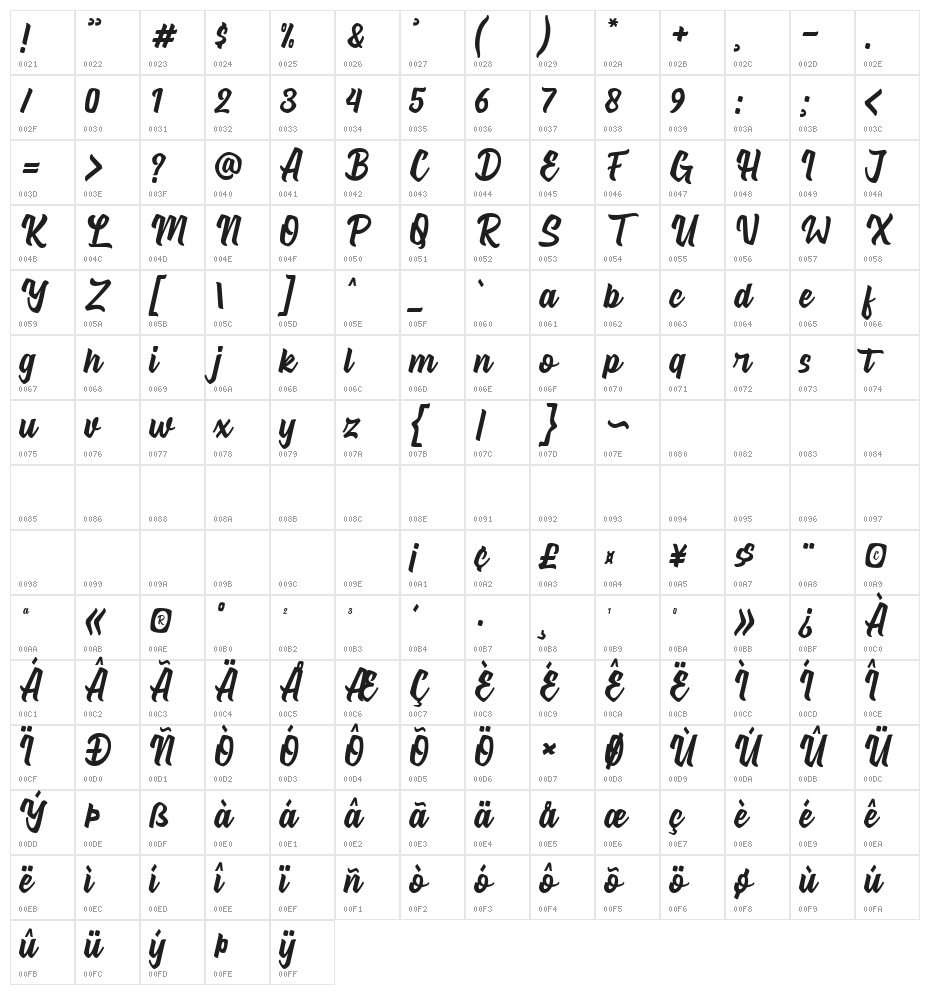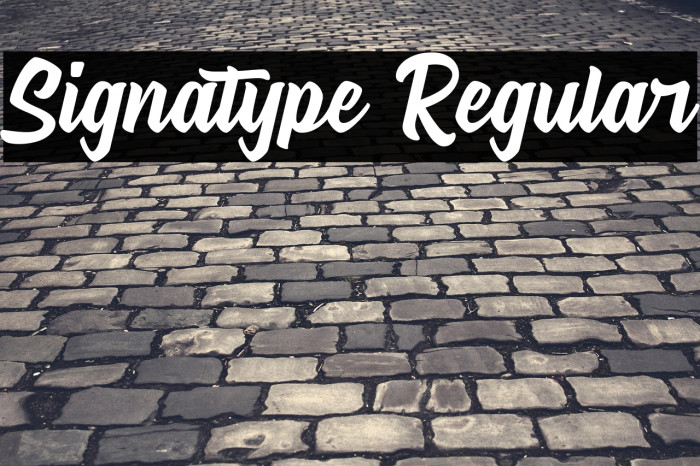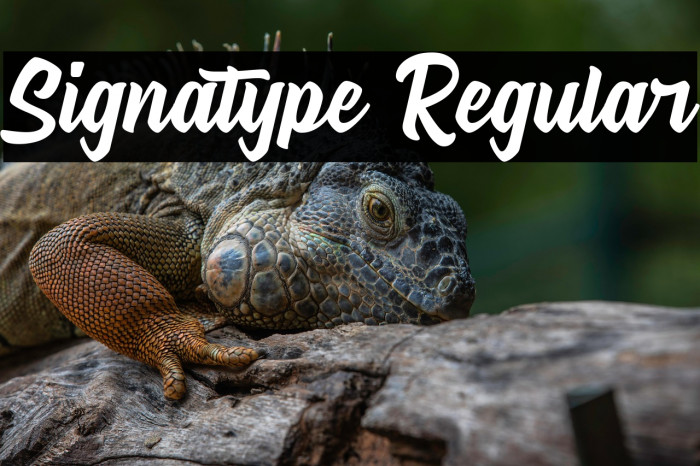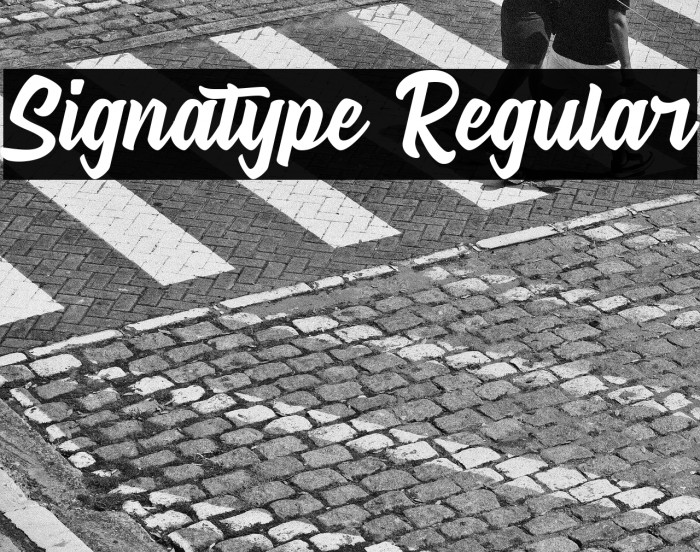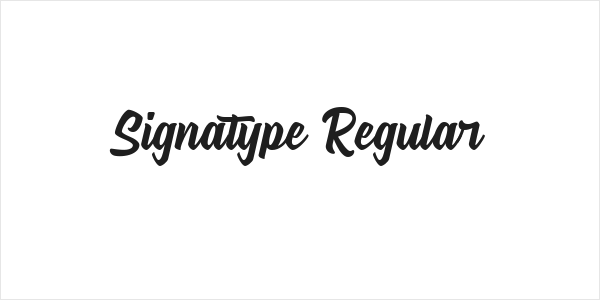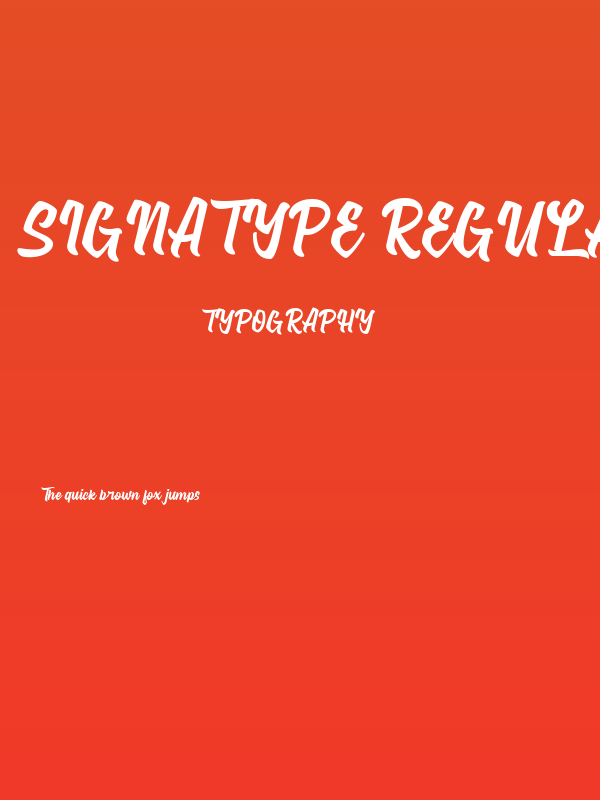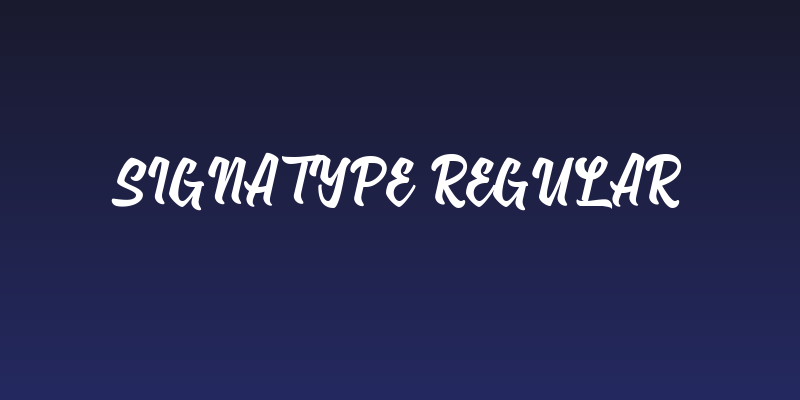
Signatype Regular Font
Signatype Regular Description
This font features a bold and expressive script style, characterized by its fluid and dynamic strokes. The uppercase letters are slightly slanted, giving a sense of movement and energy, while the lowercase letters maintain a consistent flow that enhances readability. The numerals and special characters are crafted with the same attention to detail, ensuring a cohesive look across all elements. The overall design is both modern and playful, making it suitable for a variety of creative applications.